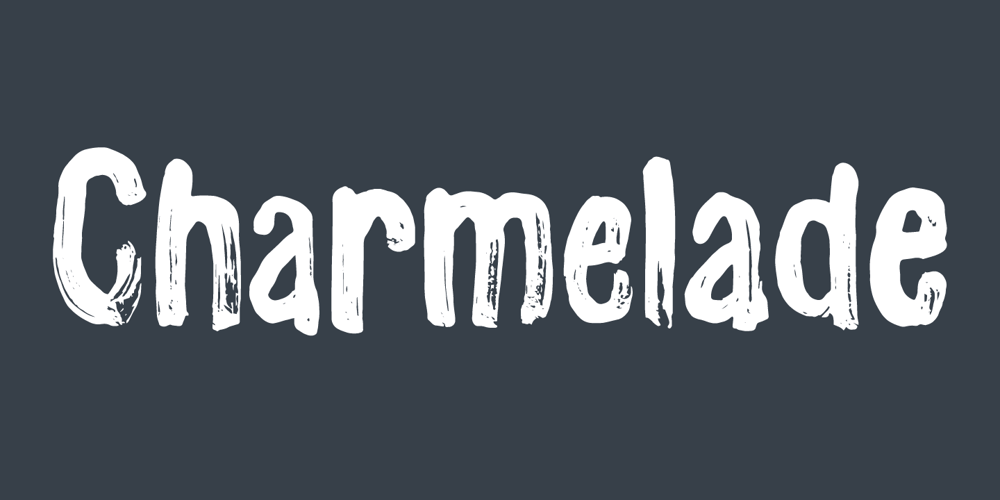
Charmelade
Charmelade font
Charmelade Font Family was designed by Jakob Fischer and published by Bogstav. Charmelade contains 1 styles and family package options. Another handmade brush font with that lovely green and organic feeling! 🙂